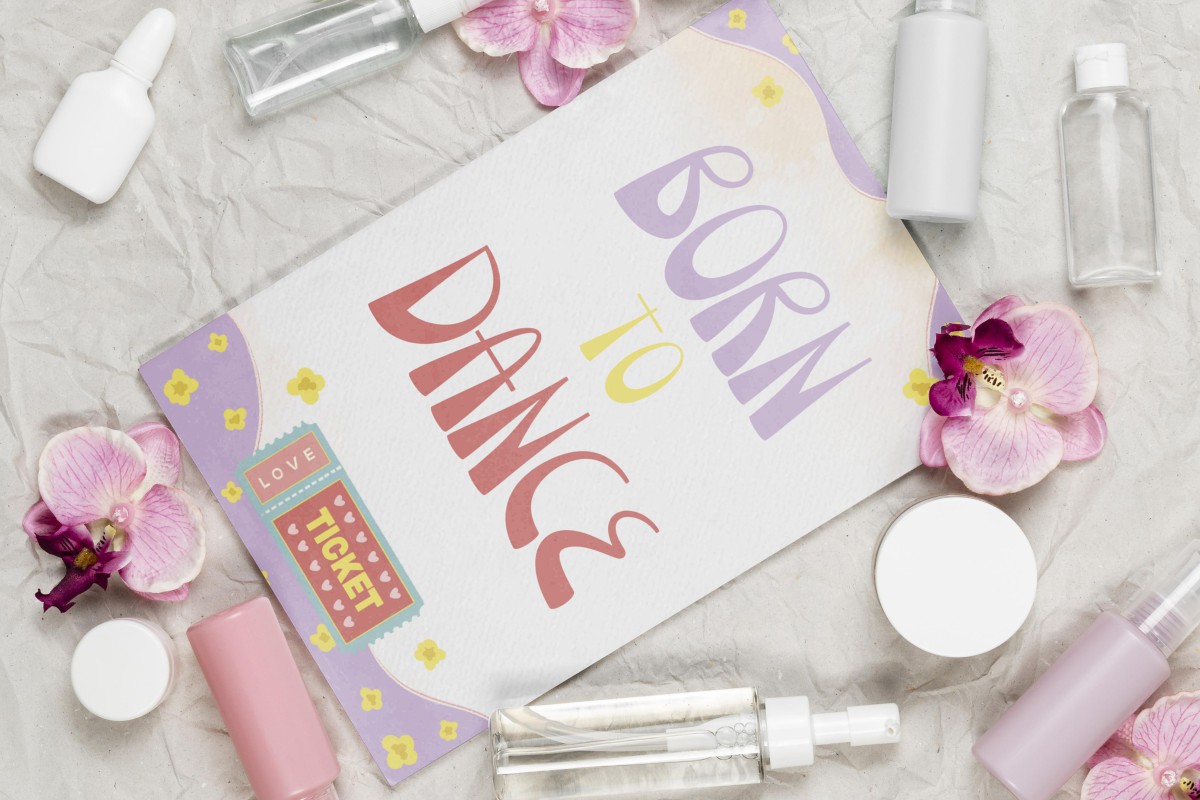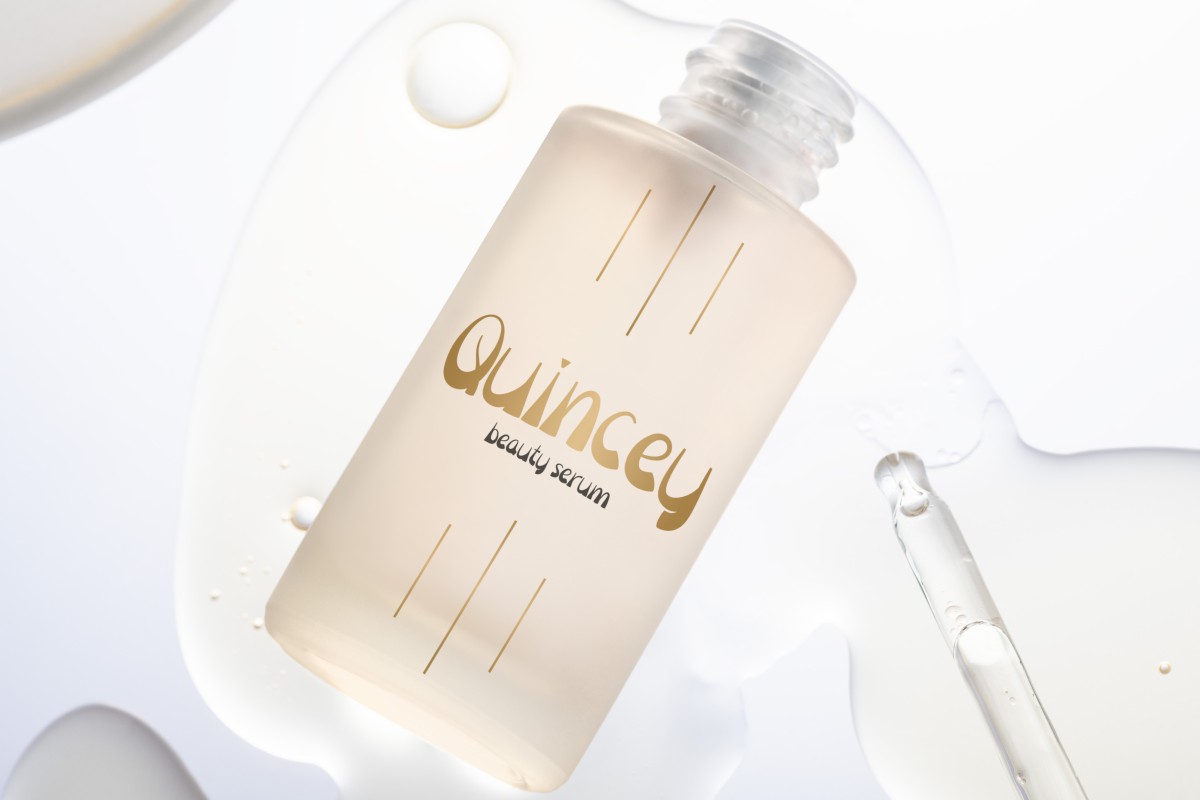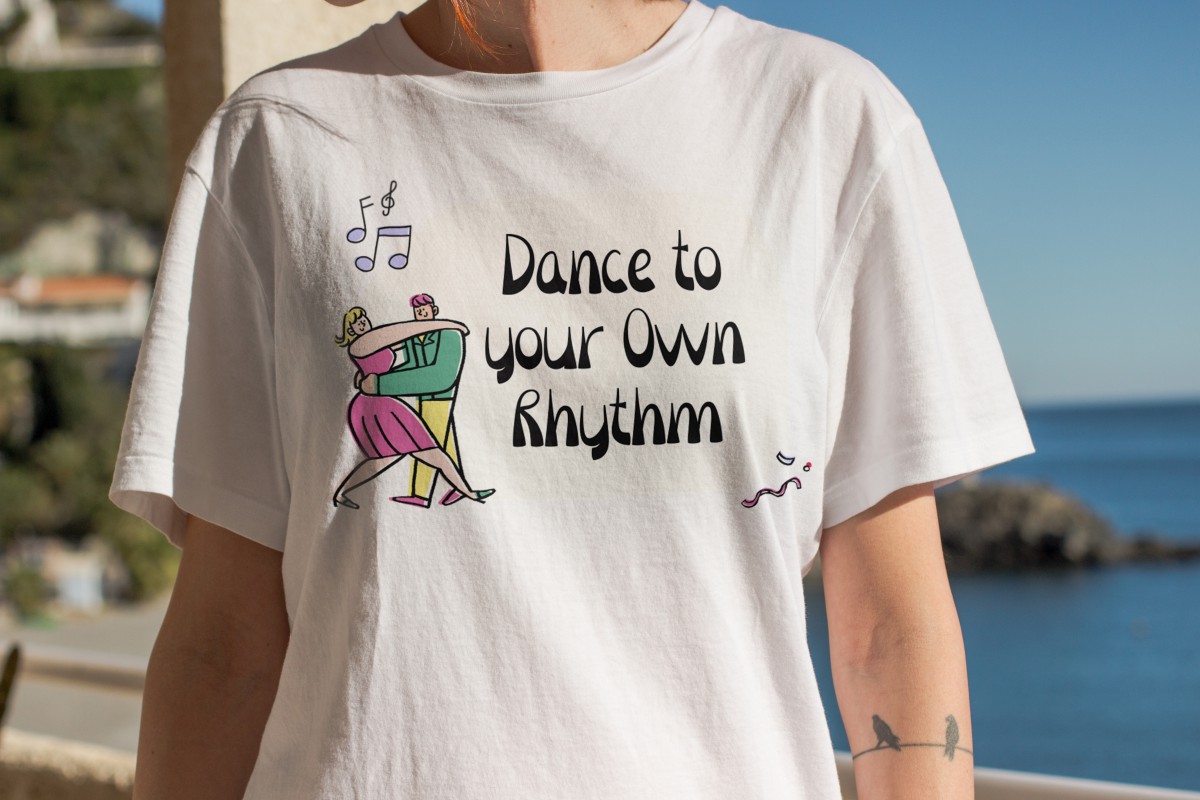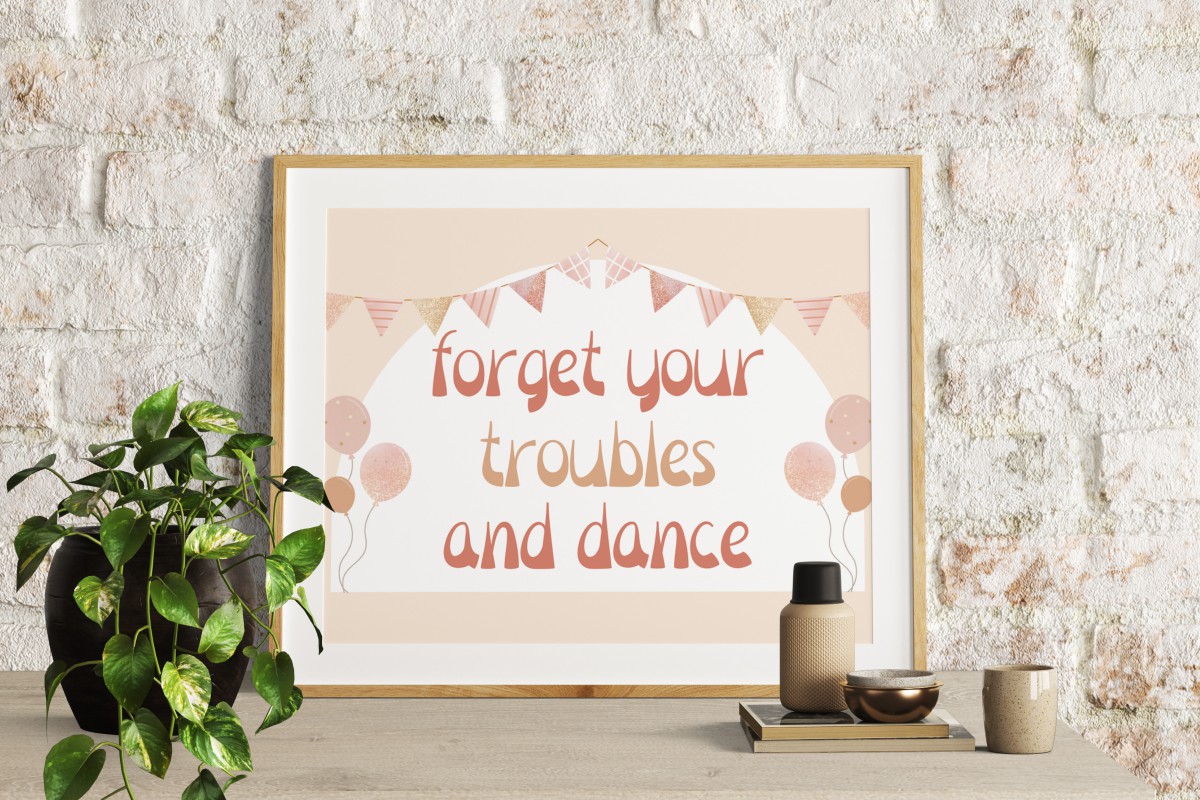
Basic Dance Font
Basic Dance Display Font
This is a fun yet classy display font with playful look, created by CalligraphyFonts. This font has a unique thickness at the bottom of each letter and will be ideal for your many industries, such as artist, boutique, cosmetic, event planner, jewelry, movie, music, and anything that requires stylish uniqueness.